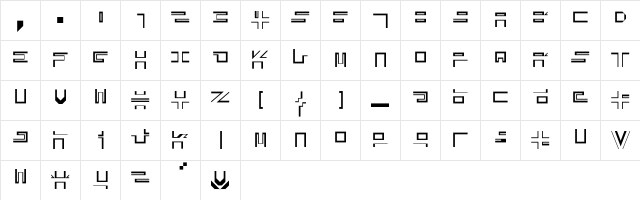
City Avenue Font Preview
City Avenue
City Avenue Font Details
| Style | Avenue |
Design Context for City Typeface
City is a composed and adaptable typeface that performs quietly and consistently across a wide range of design contexts.